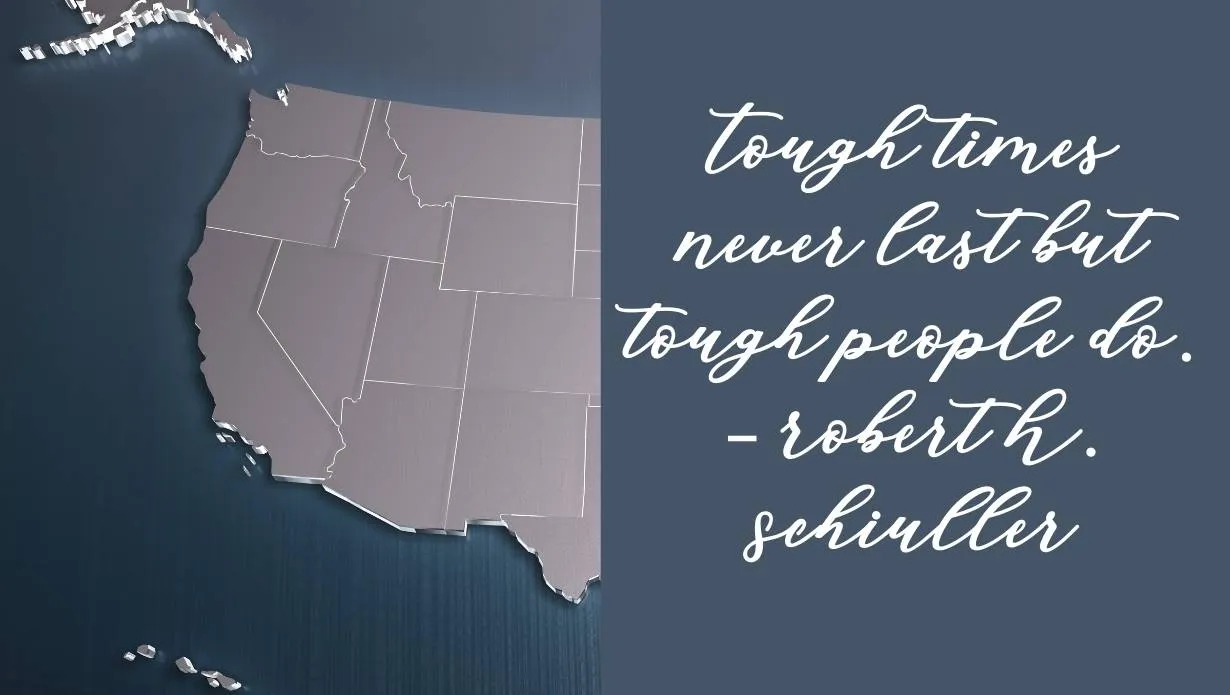
Isabella Script Font is akin to a stunning dress for your words. It injects a hint of sophistication into your writing, causing it to shine.
This font has a graceful and stylish script that’s perfect for making your invitations or projects look chic and refined. If you want your words to carry a sense of beauty and sophistication, Isabella Script Font is the perfect choice.